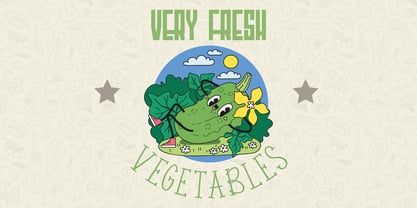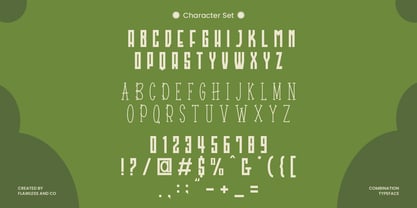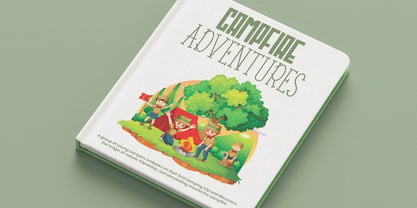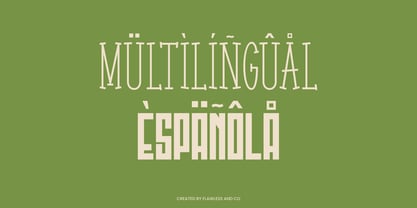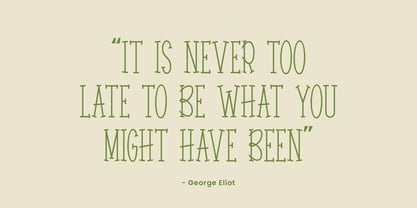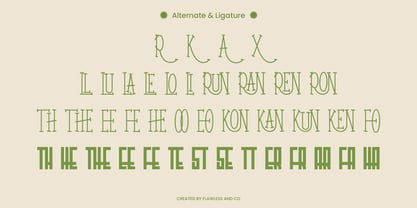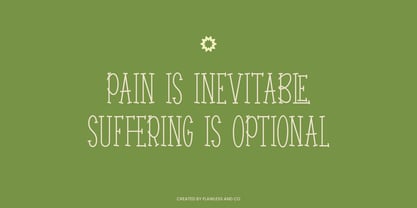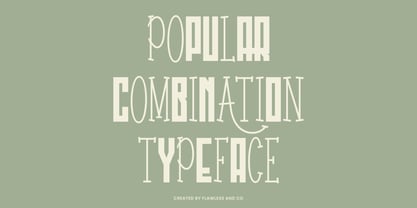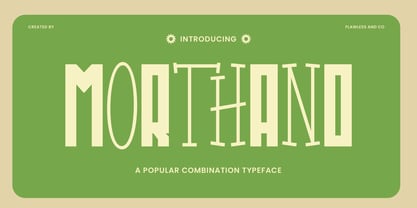
Morthano
by Flawlessandco
Morthano is a lively and imaginative combination font that brings together the best of fun and creativity. Featuring a mix of quirky shapes, bold strokes, and dynamic character, Morthano is perfect for playful branding, kids’ designs, creative packaging, and eye-catching social media posts. Its energetic style makes every project feel fresh, youthful, and full of personality. Whether you're creating a logo, poster, or anything in between, Morthano adds a vibrant spark that stands out from the crowd.
Features :
Multilingual, Uppercase alphabet A-Z, Lowercase alphabet a-z, Numbers 0-9, Some punctuation, Alternates & Ligatures